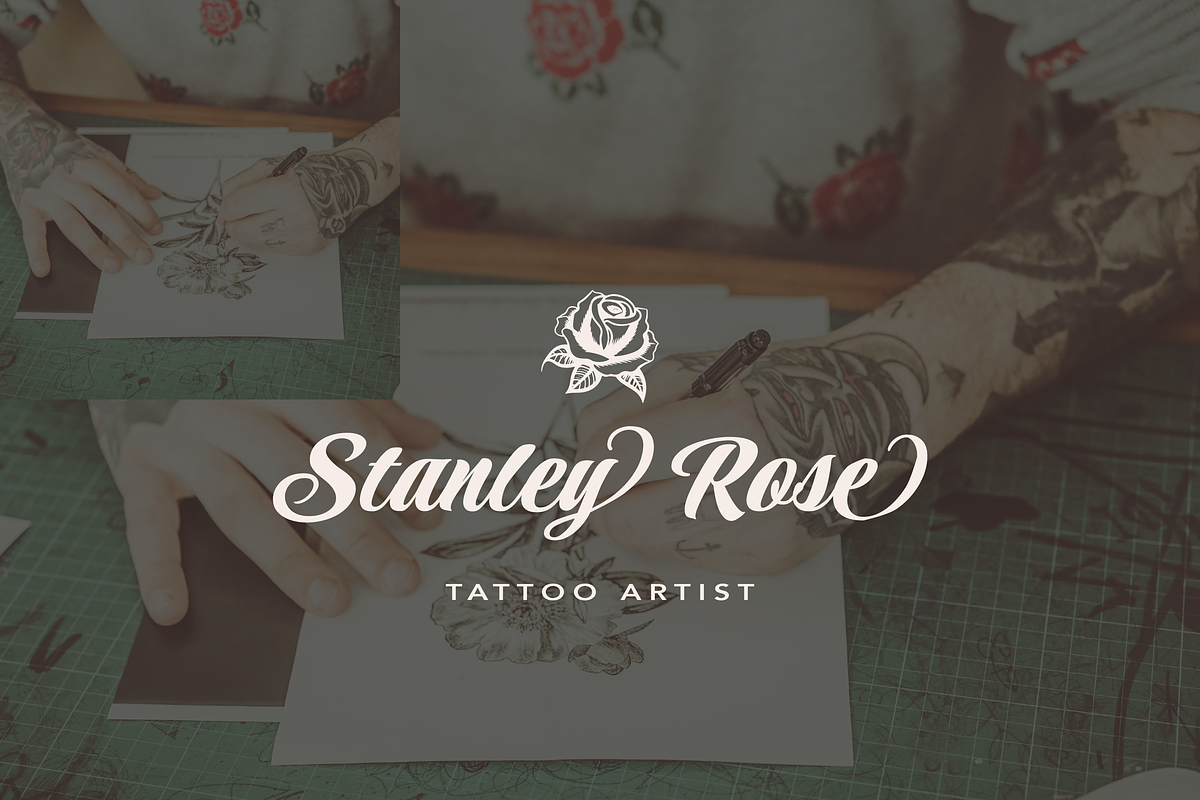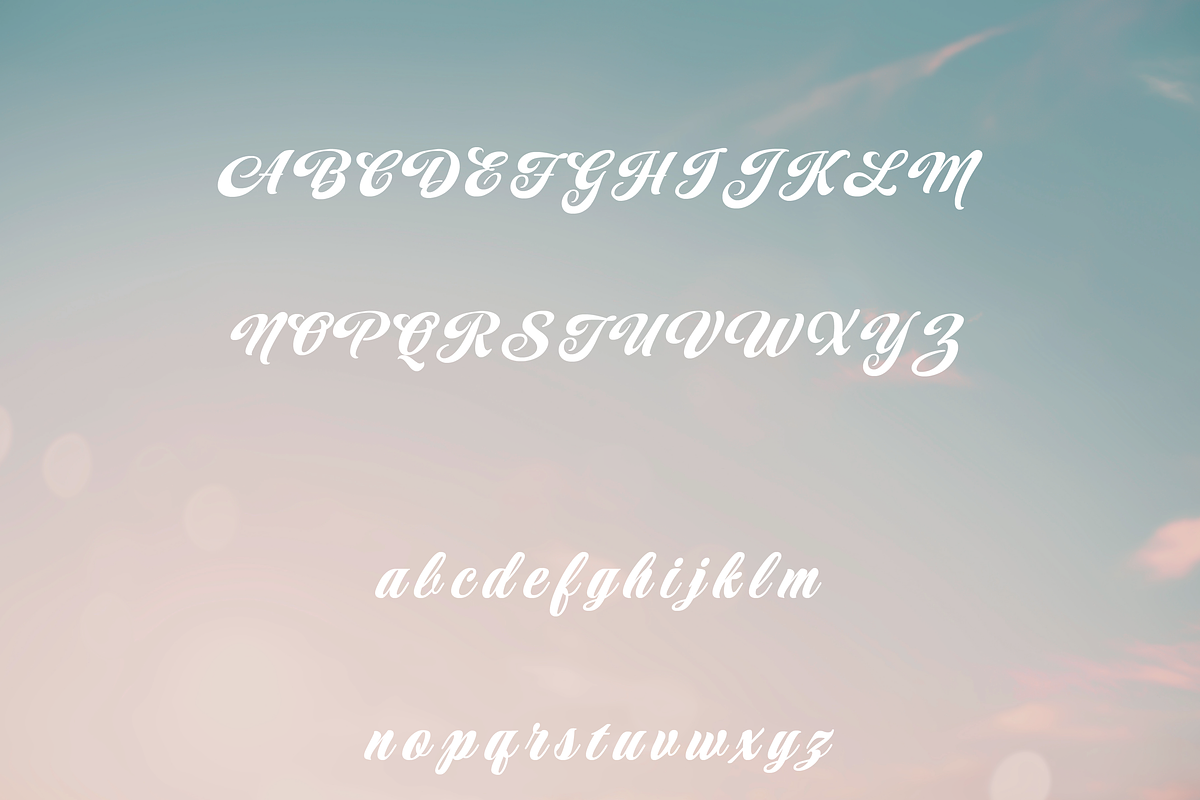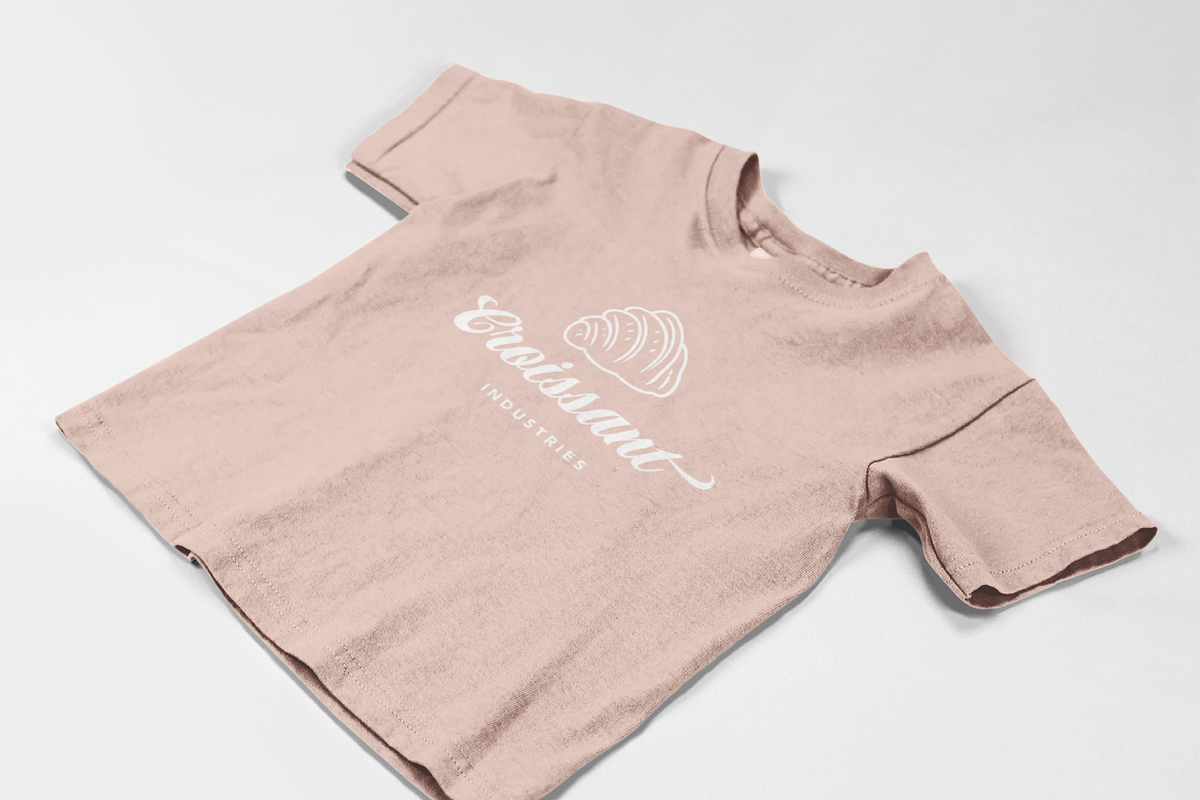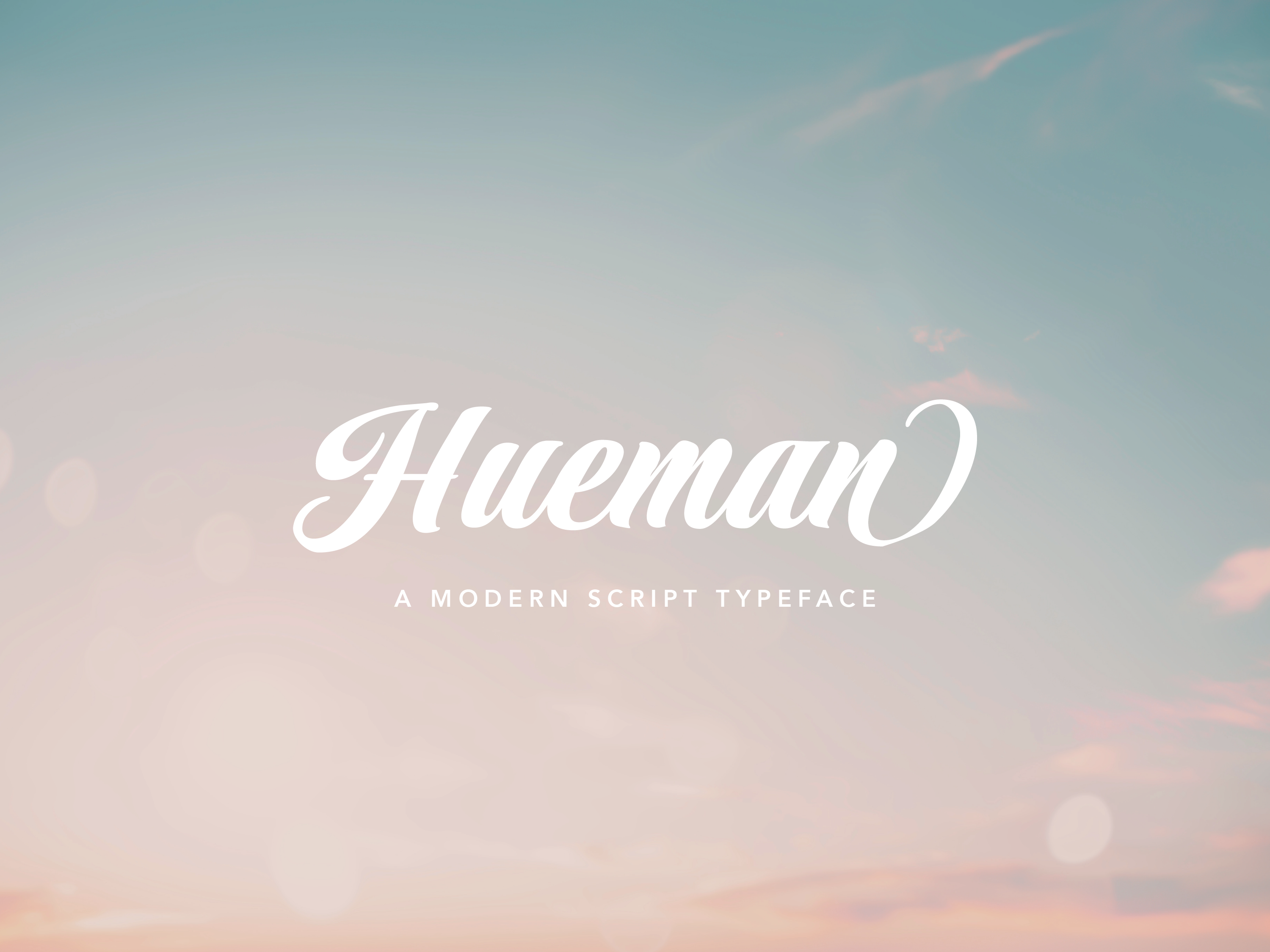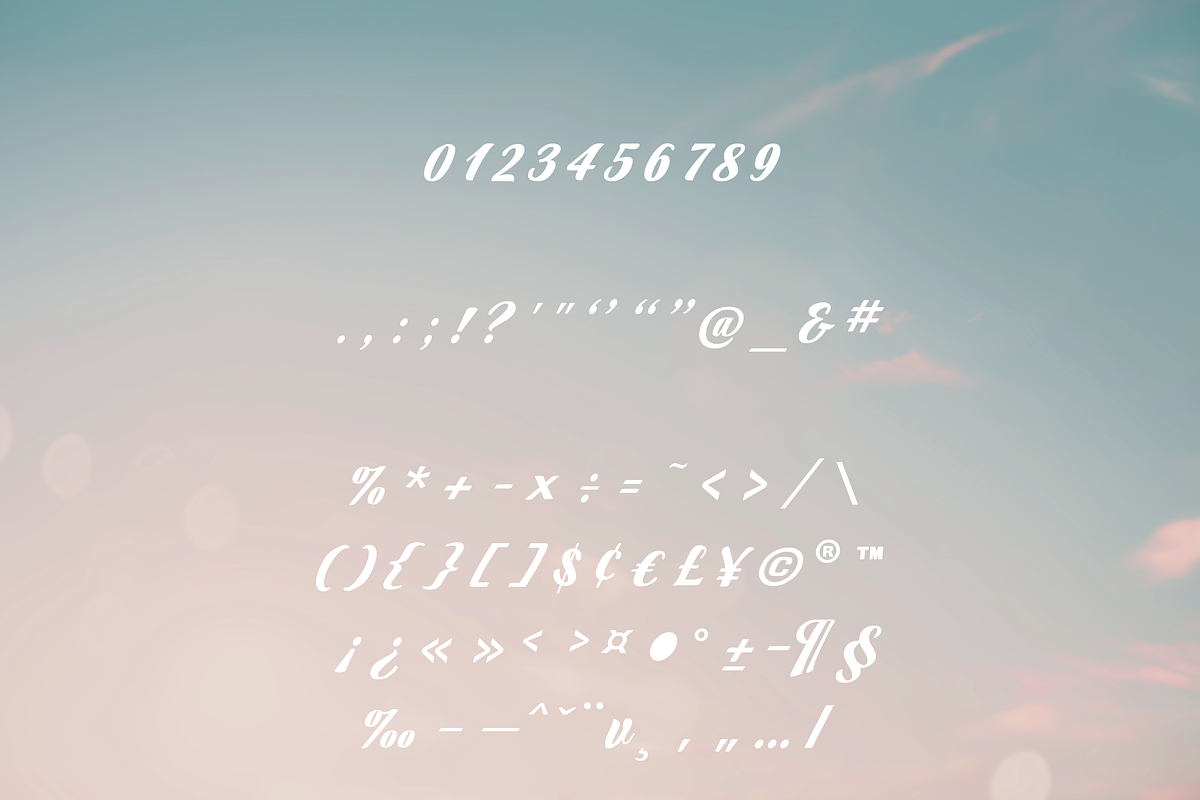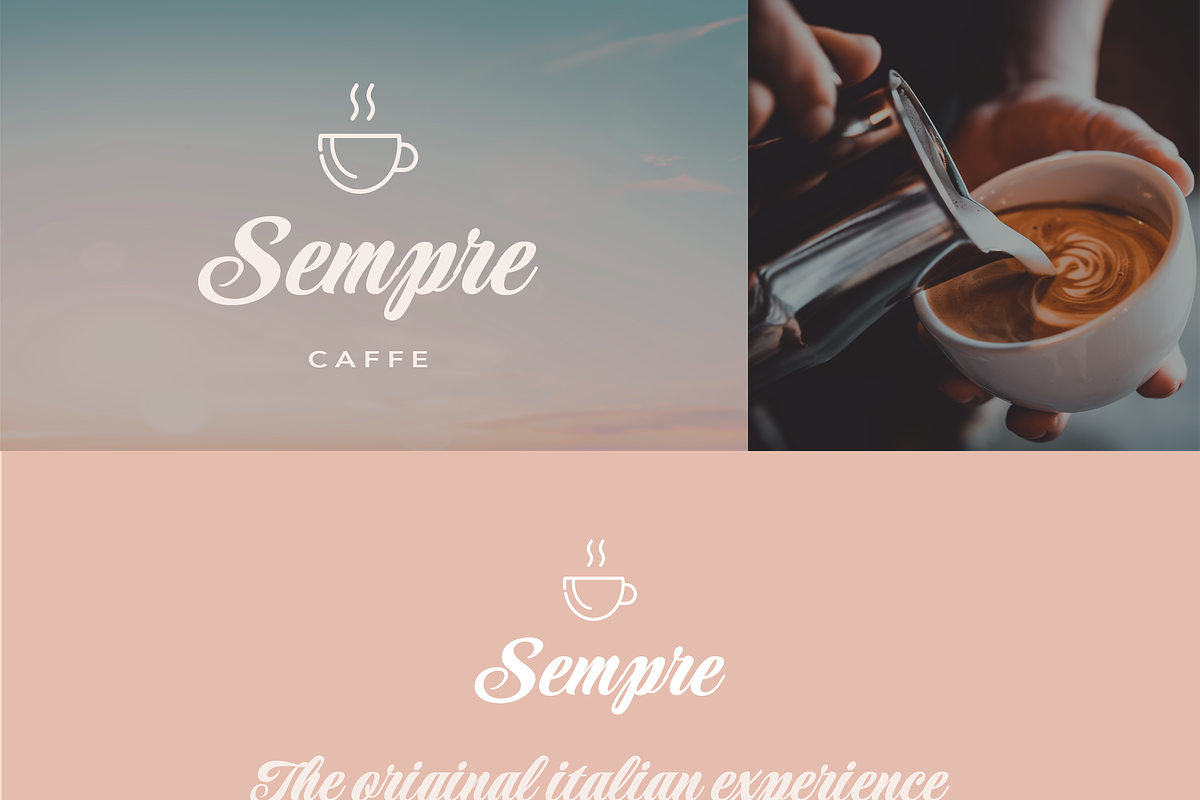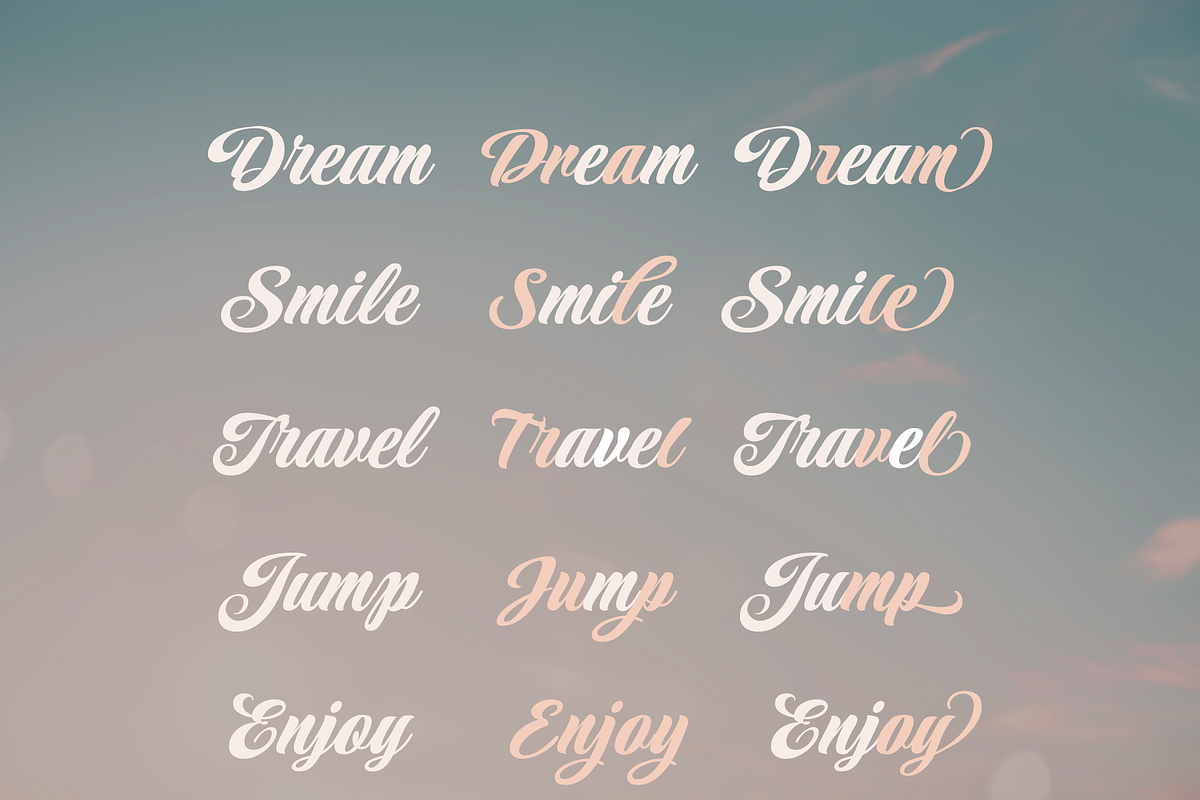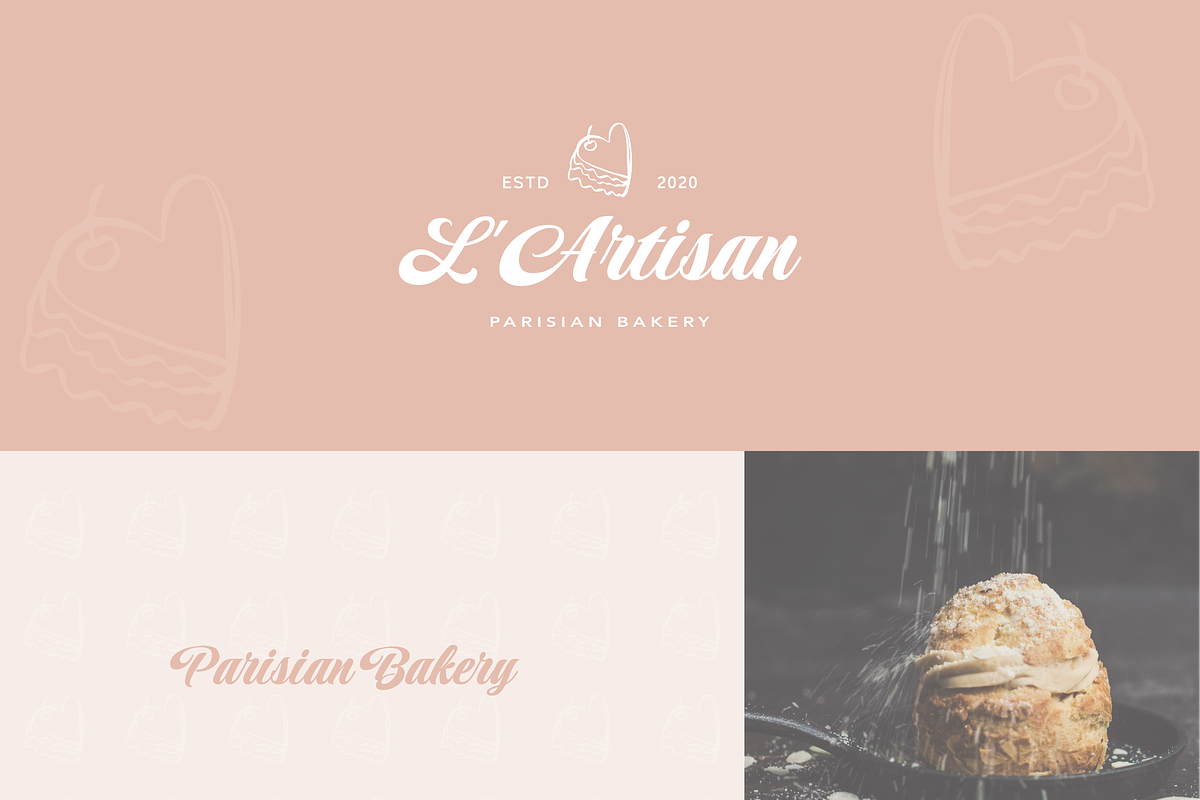
Hueman | Script Font
Hueman is a versatile and dynamic script font that offers a wide range of possibilities, from casual, non-connecting letterforms to a more formal, refined appeal. With its fluid strokes and elegant curves, Hueman can be adapted to suit both casual and sophisticated design projects. Its stylistic sets provide further customization, making it an invaluable tool for graphic designers looking to create unique, high-quality typography.
Whether you’re designing for a luxury brand, creating personalized invitations, or working on creative advertising materials, Hueman is designed to bring a beautiful, tailored touch to your typography.